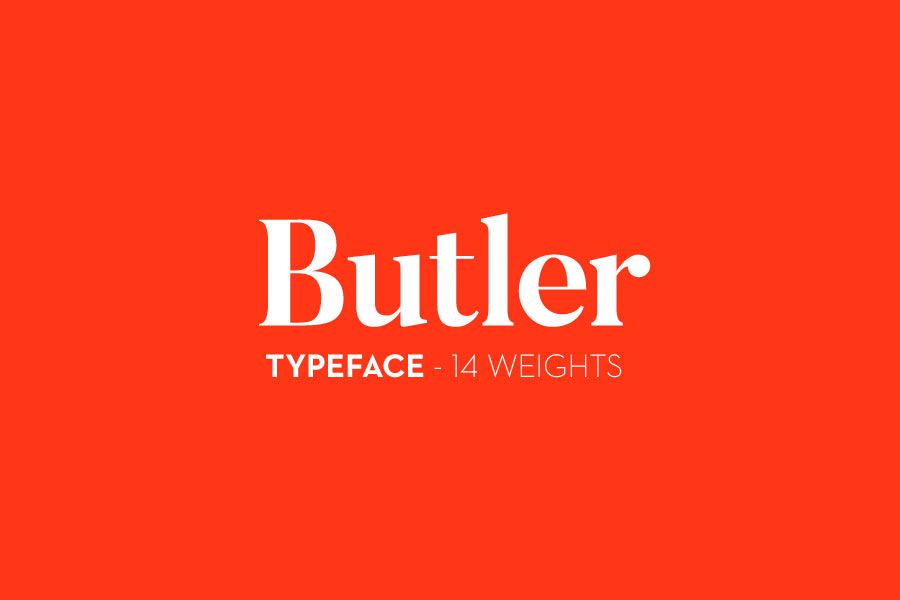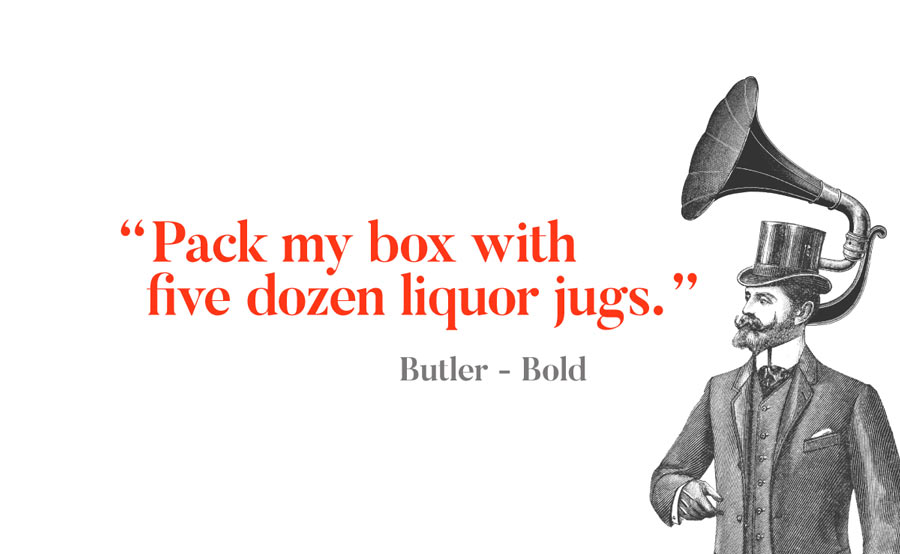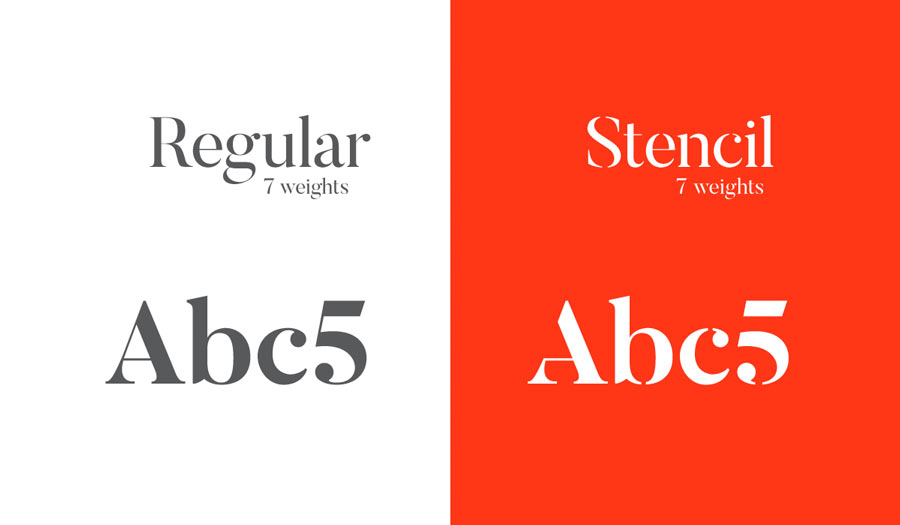
Butler is a free serif typeface that comes with a big family. It was inspired by a mix between the Bodoni and Dala Floda family. According to the designer, the goal of this font is to bring a bit of modernism to serif fonts by working on the curves of classical serif fonts and adding an extra stencil family.
Butler comes with the regular and stencil version, and each accompanied with 7 weights, which brings a total of 14 fonts in total. It’s good for posters, big titles, for print and digital.
- Designer: Fabian de Smet
- Styles: 14
- Category: Serif